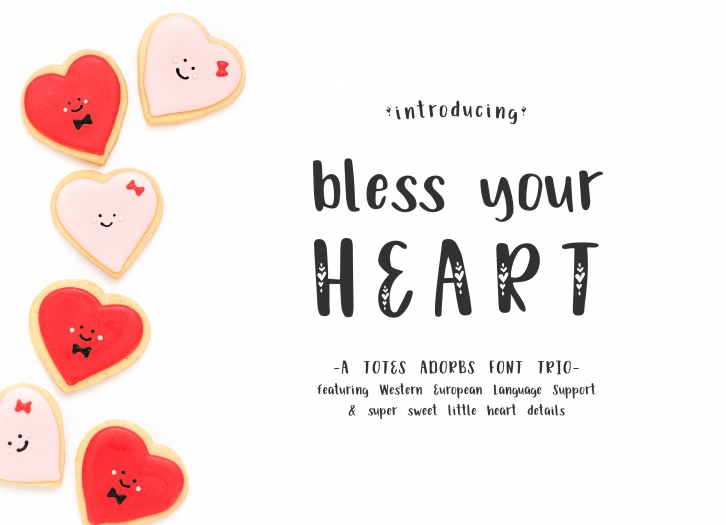
Bless Your Heart Hand Lettered Trio w Hearts is a trendy and unique font with an authentic style. It was designed by BeckMcCormick and it's a great choice for creative people who need such a font. It was released on May 22, 2017 and the file size is 9.52 MB. Bless Your Heart Hand Lettered Trio w Hearts will add an organic vibe to any design idea!